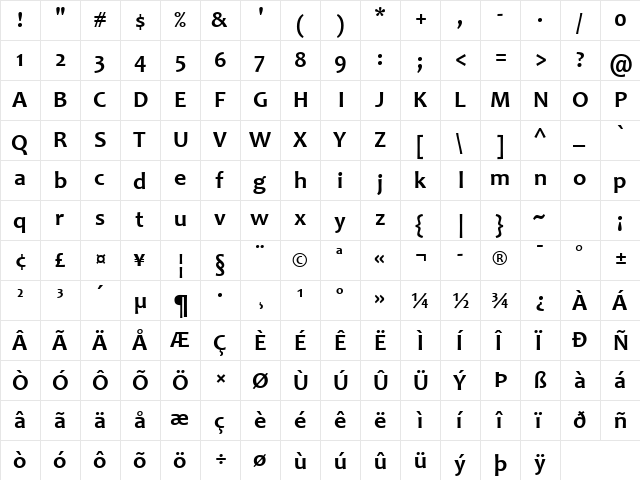
Candara Bold
| Foundry | Microsoft Corporation |
| Designer | Gary Munch |
Design Context for Candara Typeface
Candara takes a measured approach to typography — its balanced proportions and neutral character make it a reliable workhorse for both digital and print work. The heavy weight commands attention and anchors typographic hierarchies.